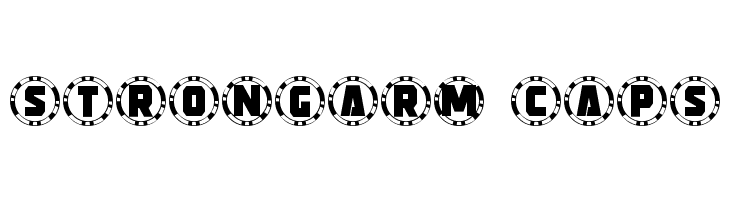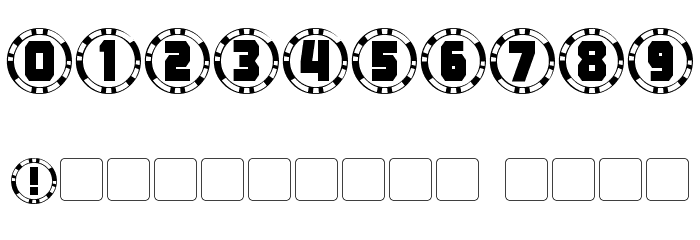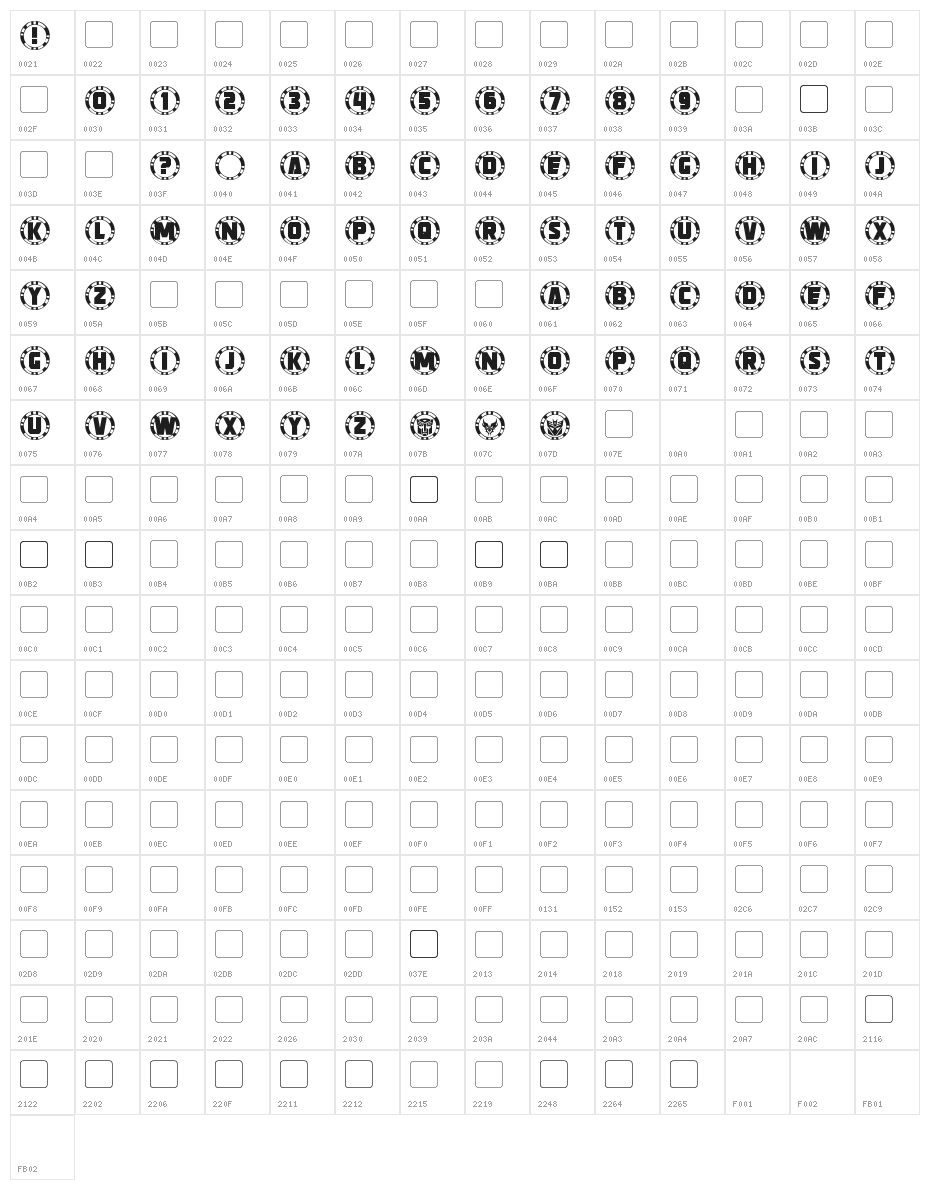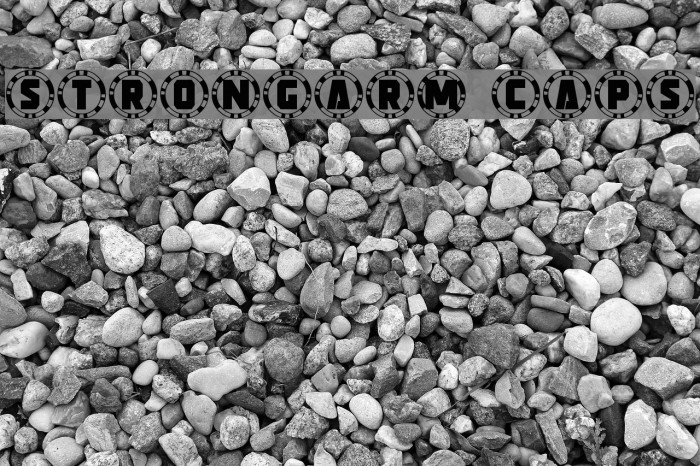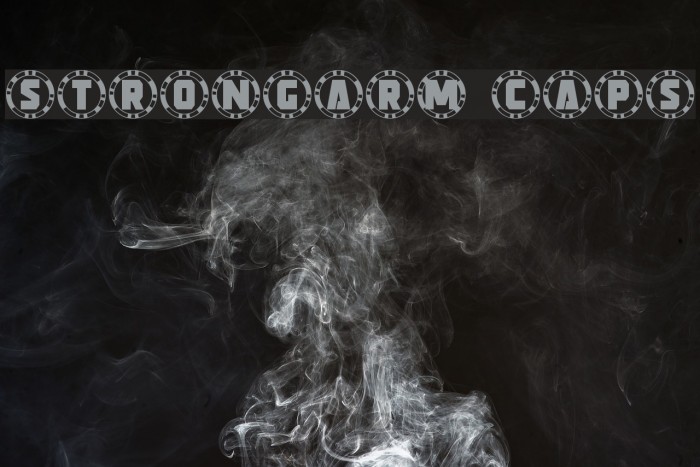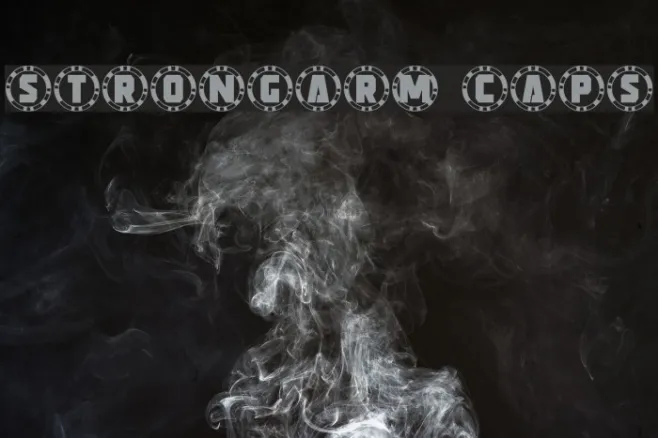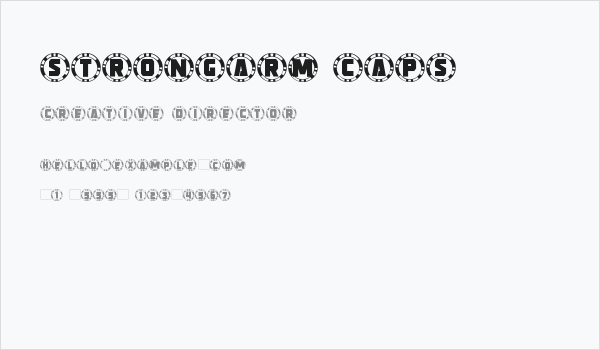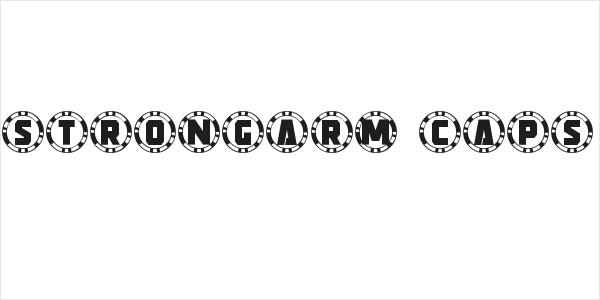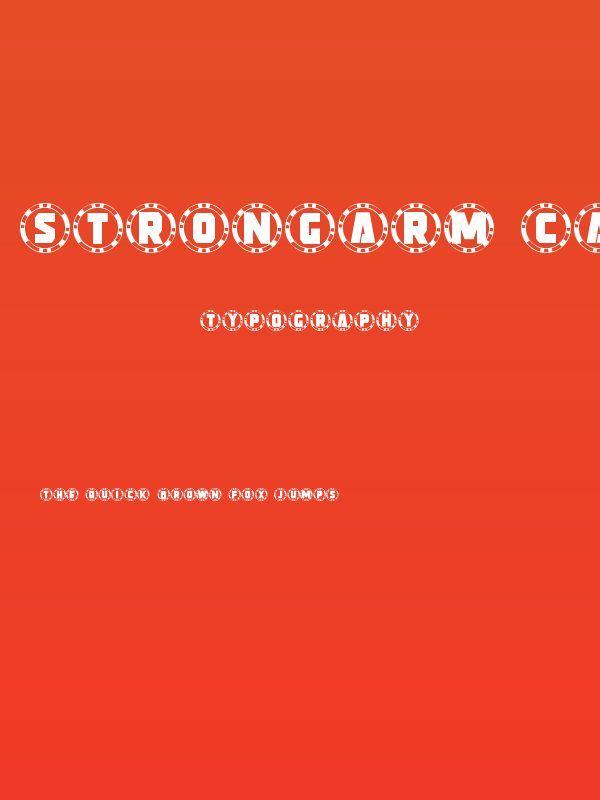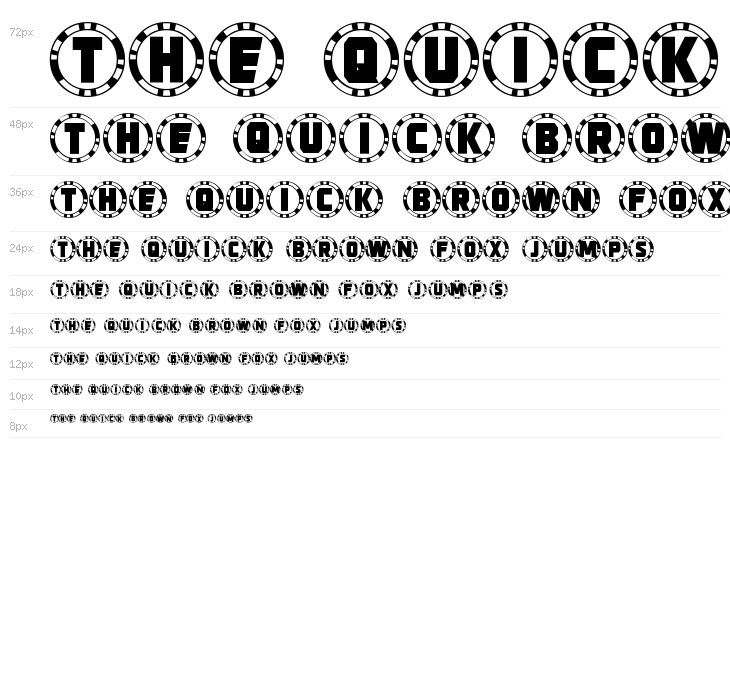
Strongarm Caps Font
Strongarm Caps Description
This font features bold, uppercase letters encased within circular shapes resembling poker chips, creating a distinct and playful aesthetic. The design is highly decorative, with each character centrally positioned within the circle, ensuring uniformity and balance. The letters are sans-serif, with a blocky and geometric style that enhances readability despite the ornate presentation. The numbers follow the same design principle, maintaining consistency across the character set. This font does not include lowercase letters, focusing instead on a strong visual impact with its uppercase and numeral offerings. The special characters are also enclosed in circles, maintaining the thematic coherence throughout the set.
| Proposed Projects | Ideal for casino-themed events, game designs, playful branding, or any project requiring a bold, decorative typeface. |